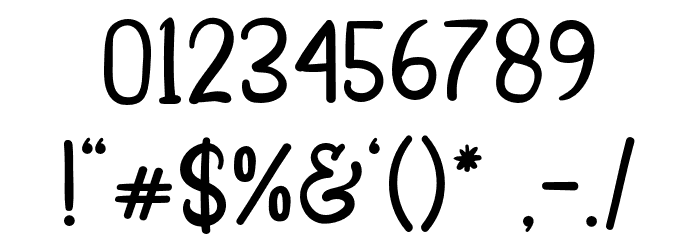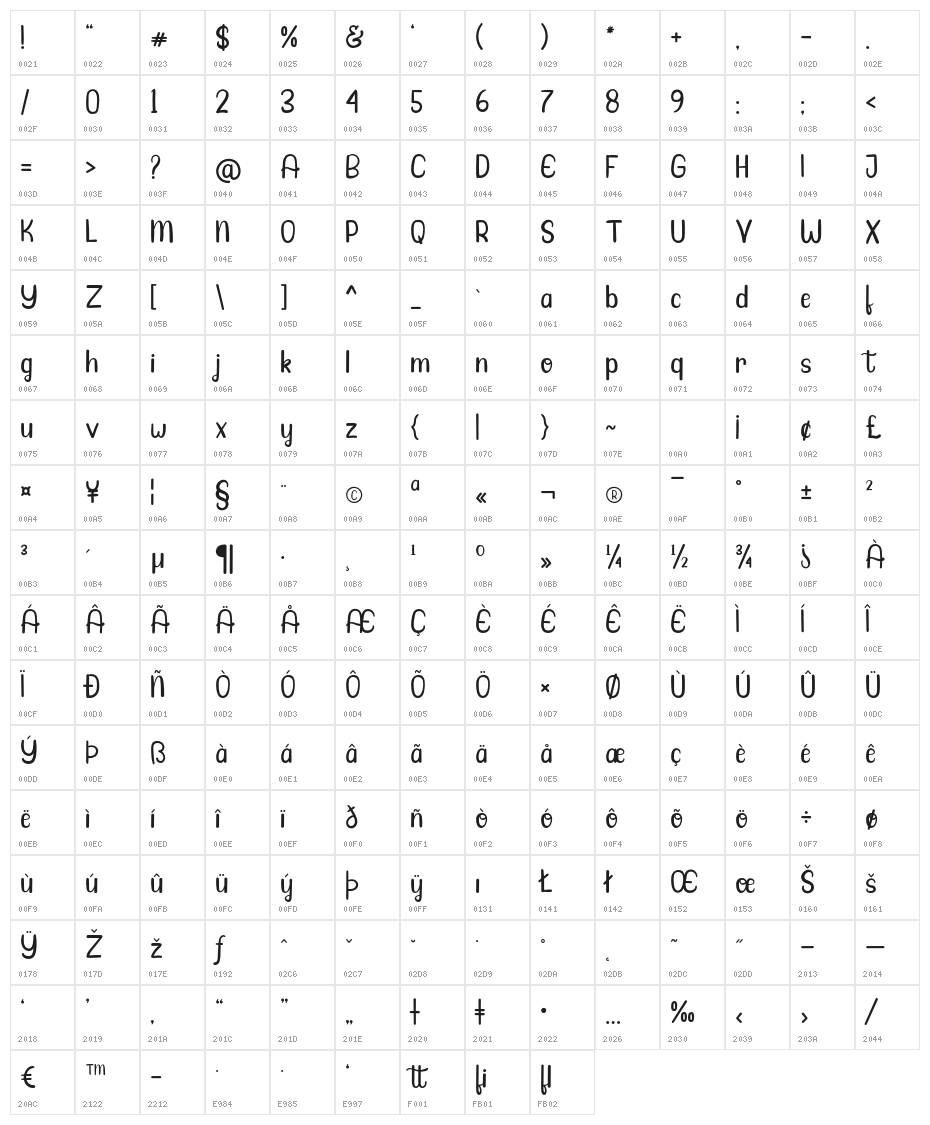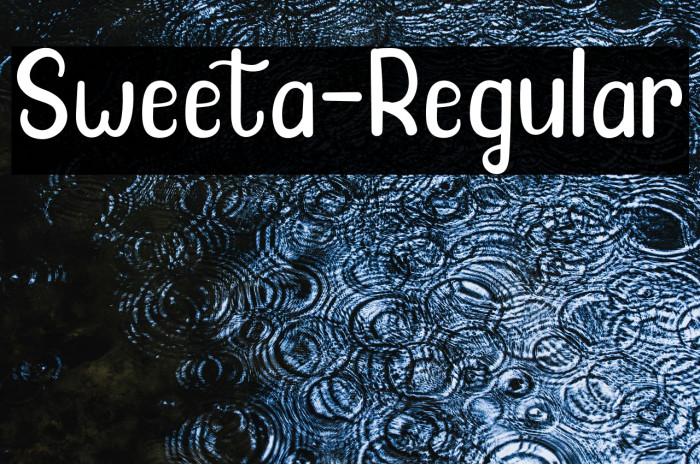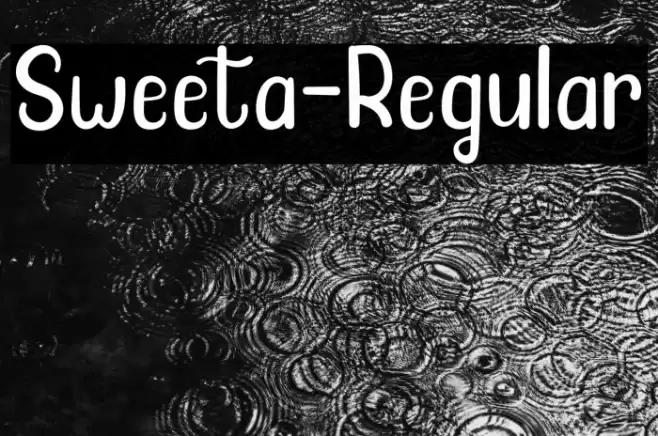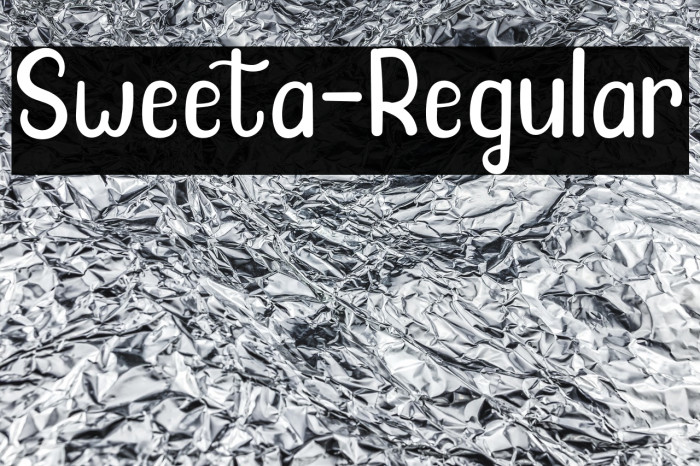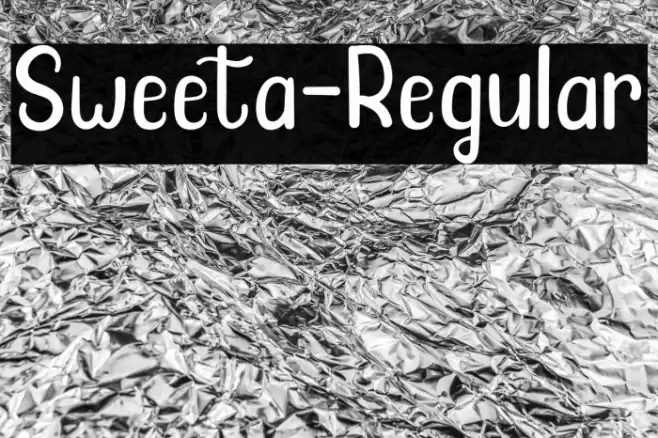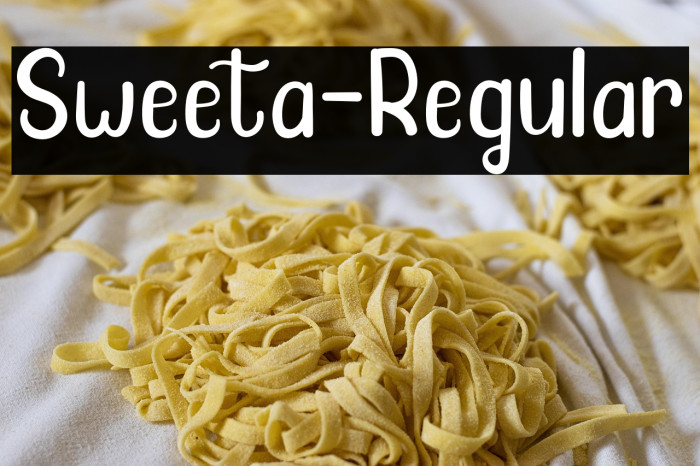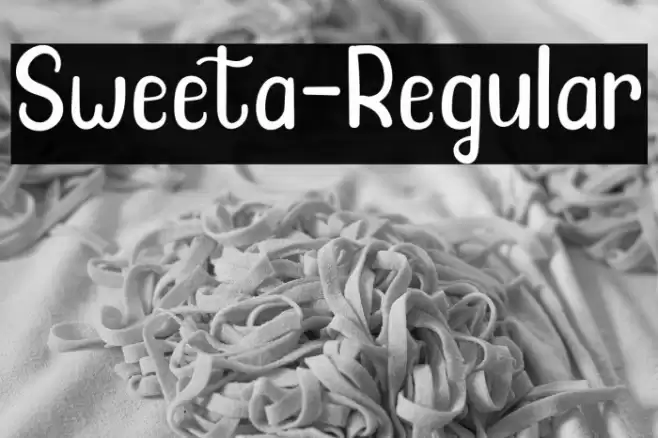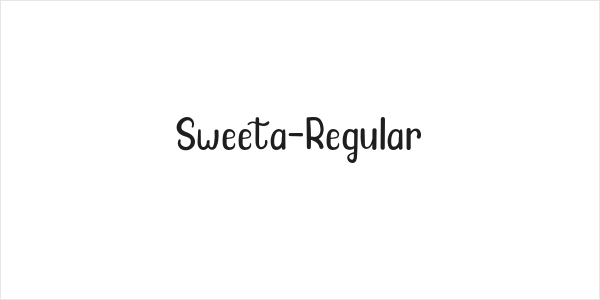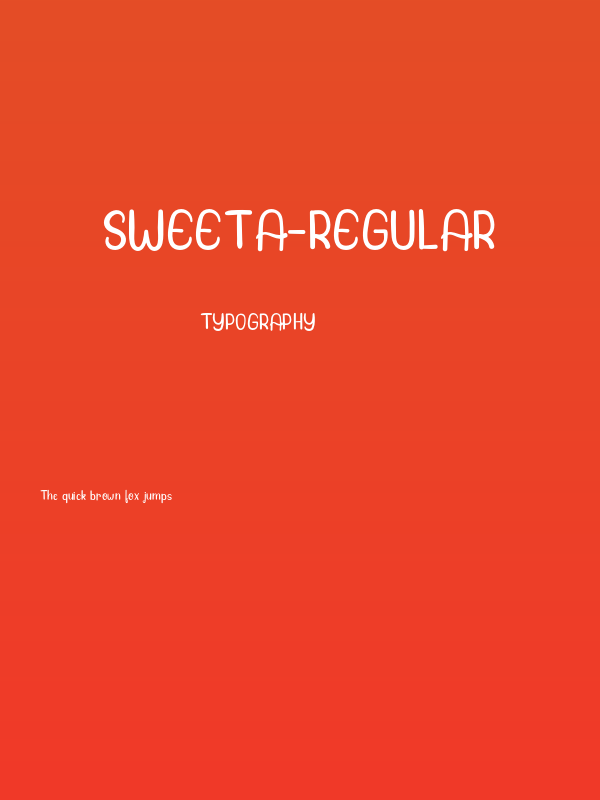
Sweeta-Regular Font
Sweeta-Regular Description
This playful and whimsical font features rounded, flowing characters that exude a friendly and approachable vibe. The letters have a consistent stroke width, giving them a uniform appearance while maintaining a hand-drawn aesthetic. The uppercase letters are bold and prominent, while the lowercase letters have a slightly more relaxed form, adding to the casual feel. Numbers and special characters are designed to match the overall style, ensuring cohesion across all text elements. This font is perfect for projects that require a touch of fun and creativity.